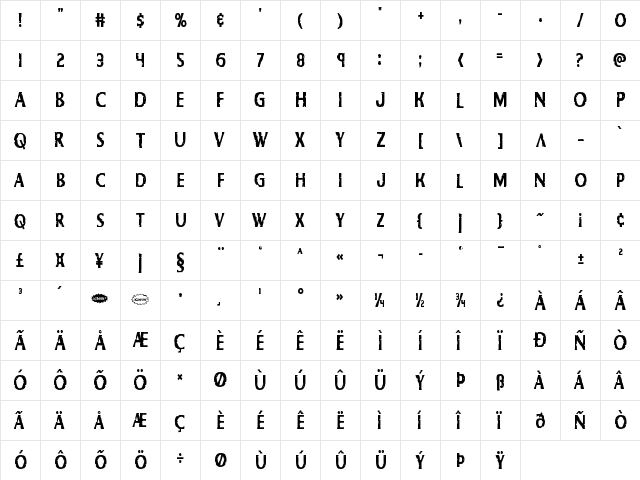
Body Swipers Condensed Condensed
Design Context for Body Swipers Condensed Typeface
Body Swipers Condensed takes a measured approach to typography — its balanced proportions and neutral character make it a reliable workhorse for both digital and print work. Its narrow stance lets it pack a punch even in space-constrained designs.
Pro Tip: Use Body Swipers Condensed in both headline and body roles to test its range before committing to a single application.